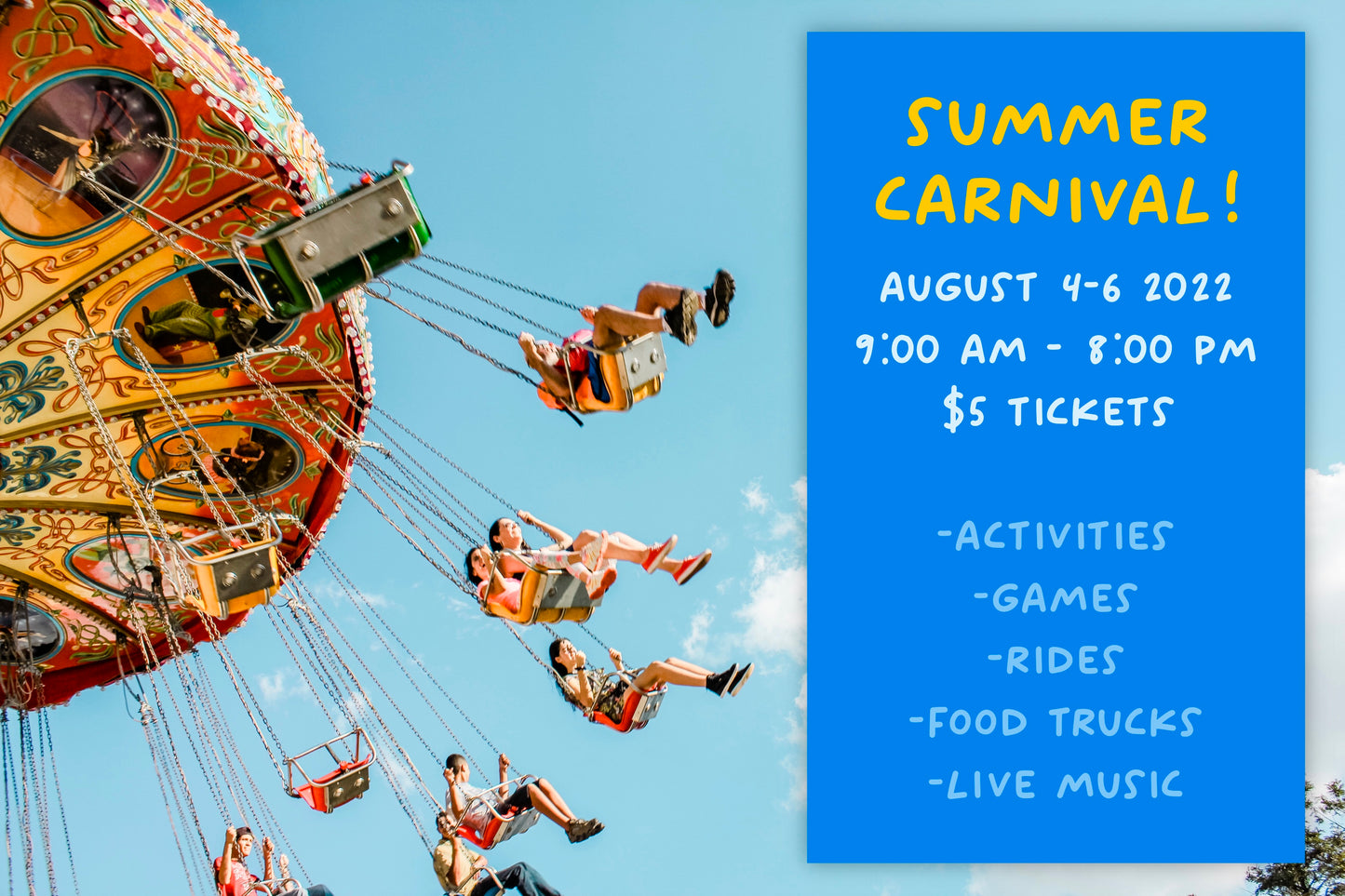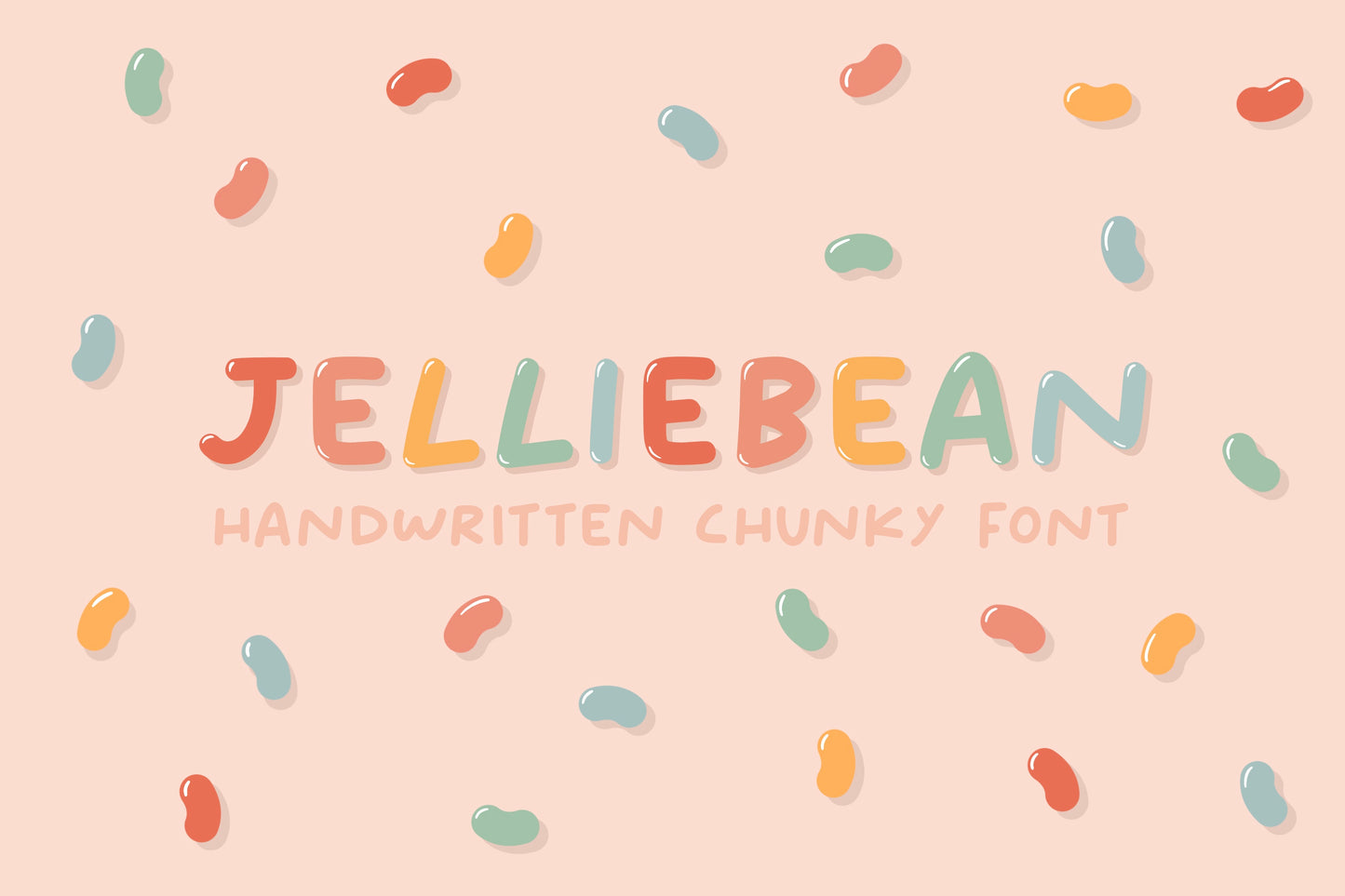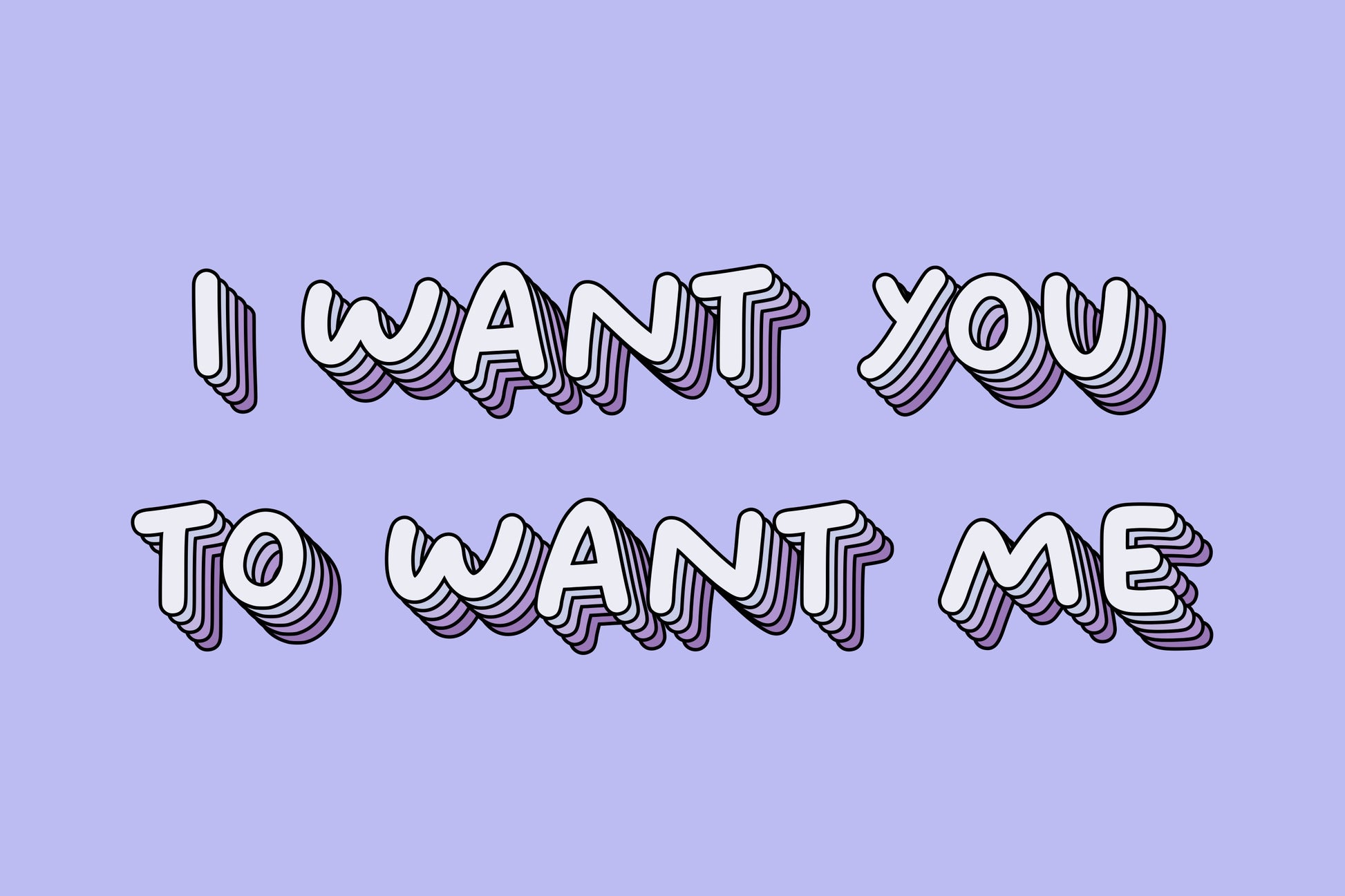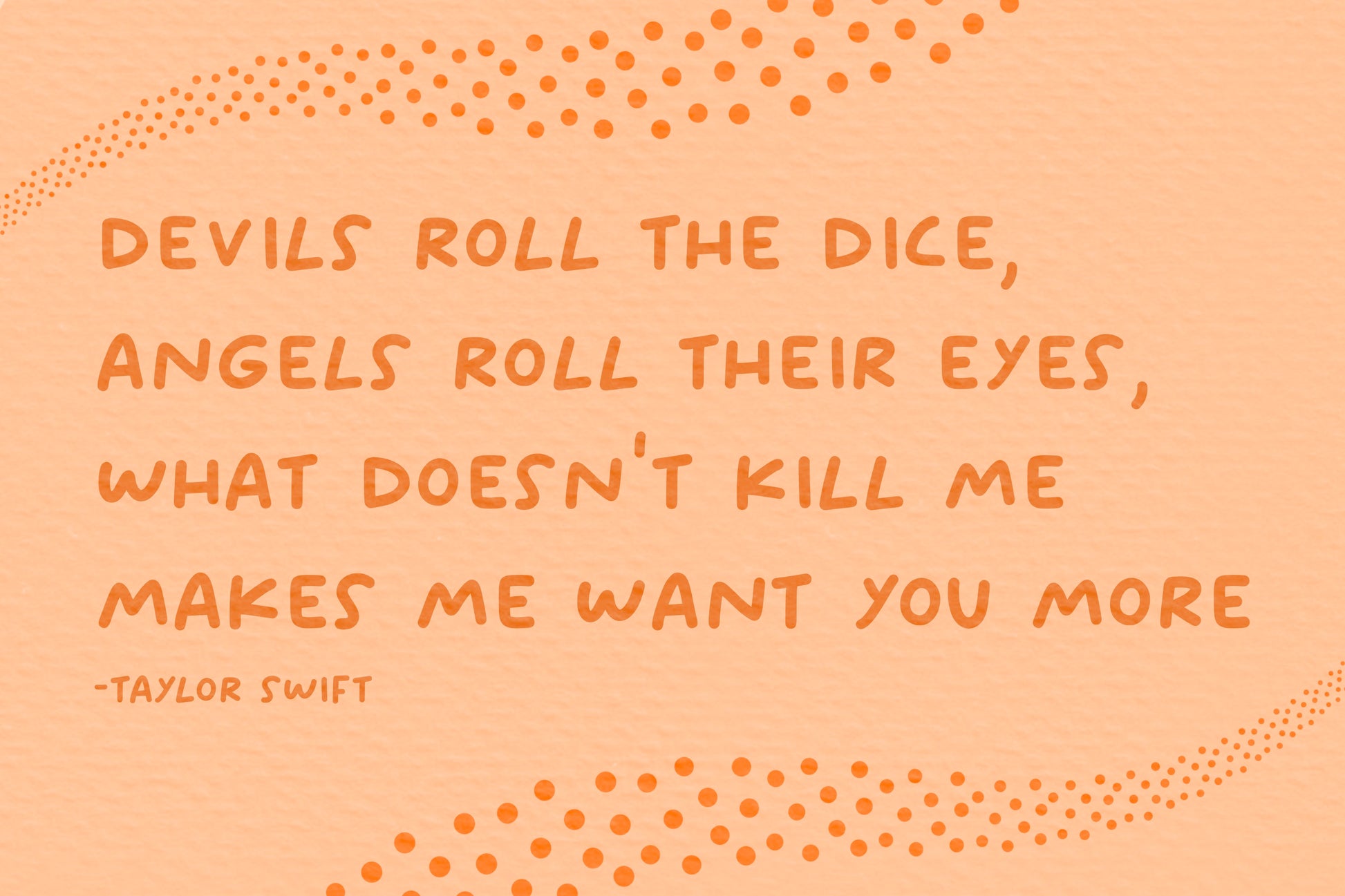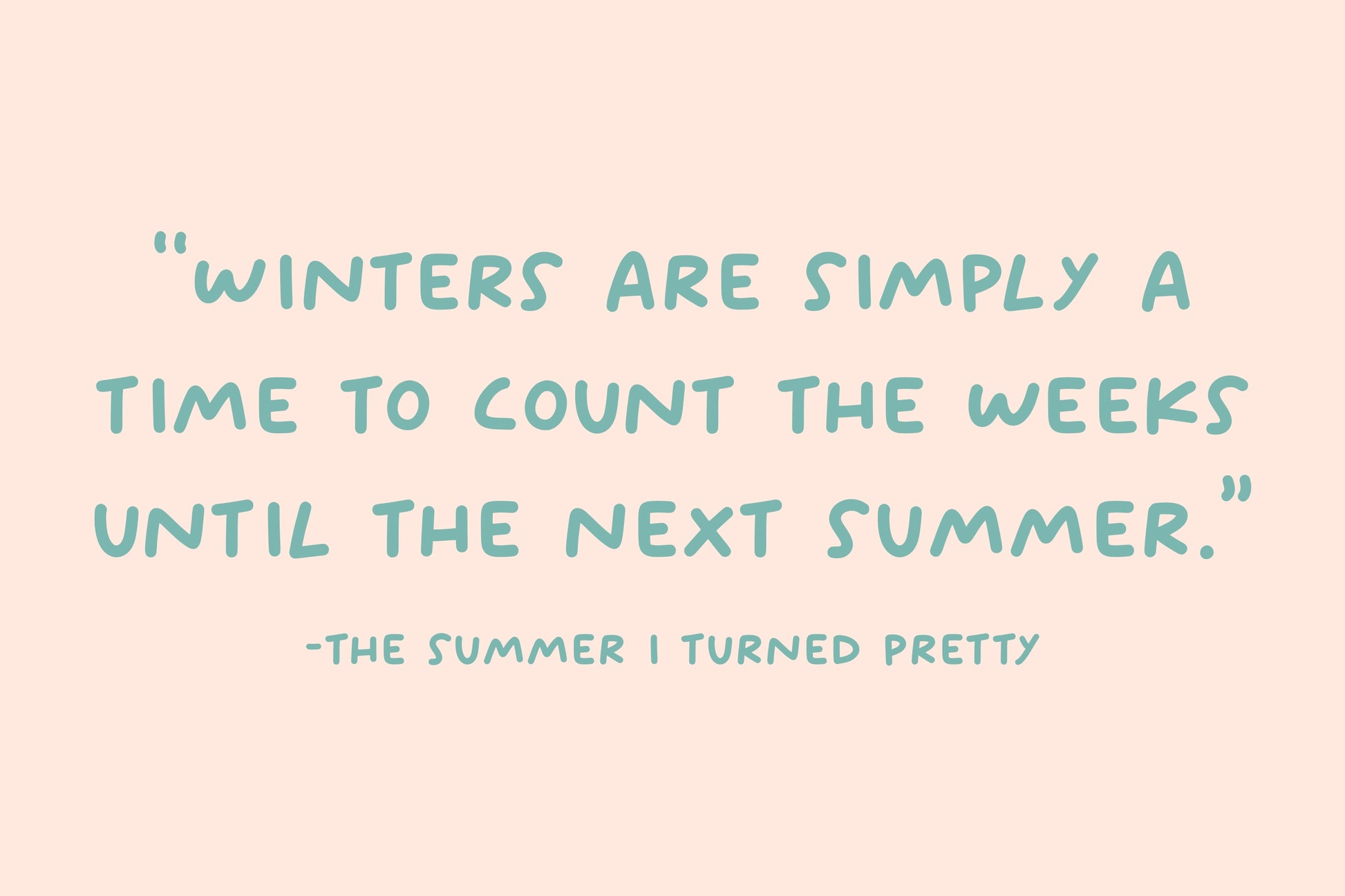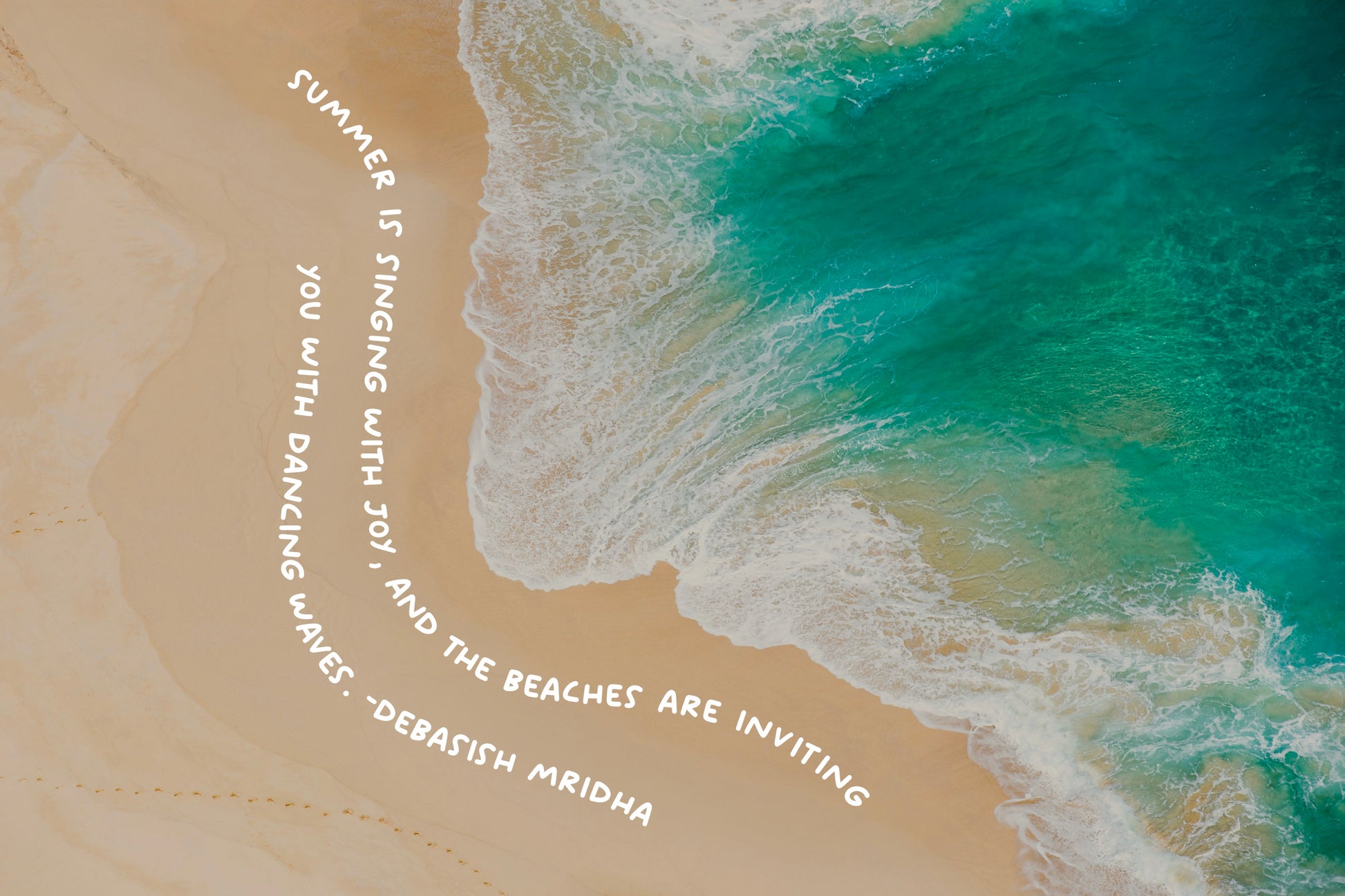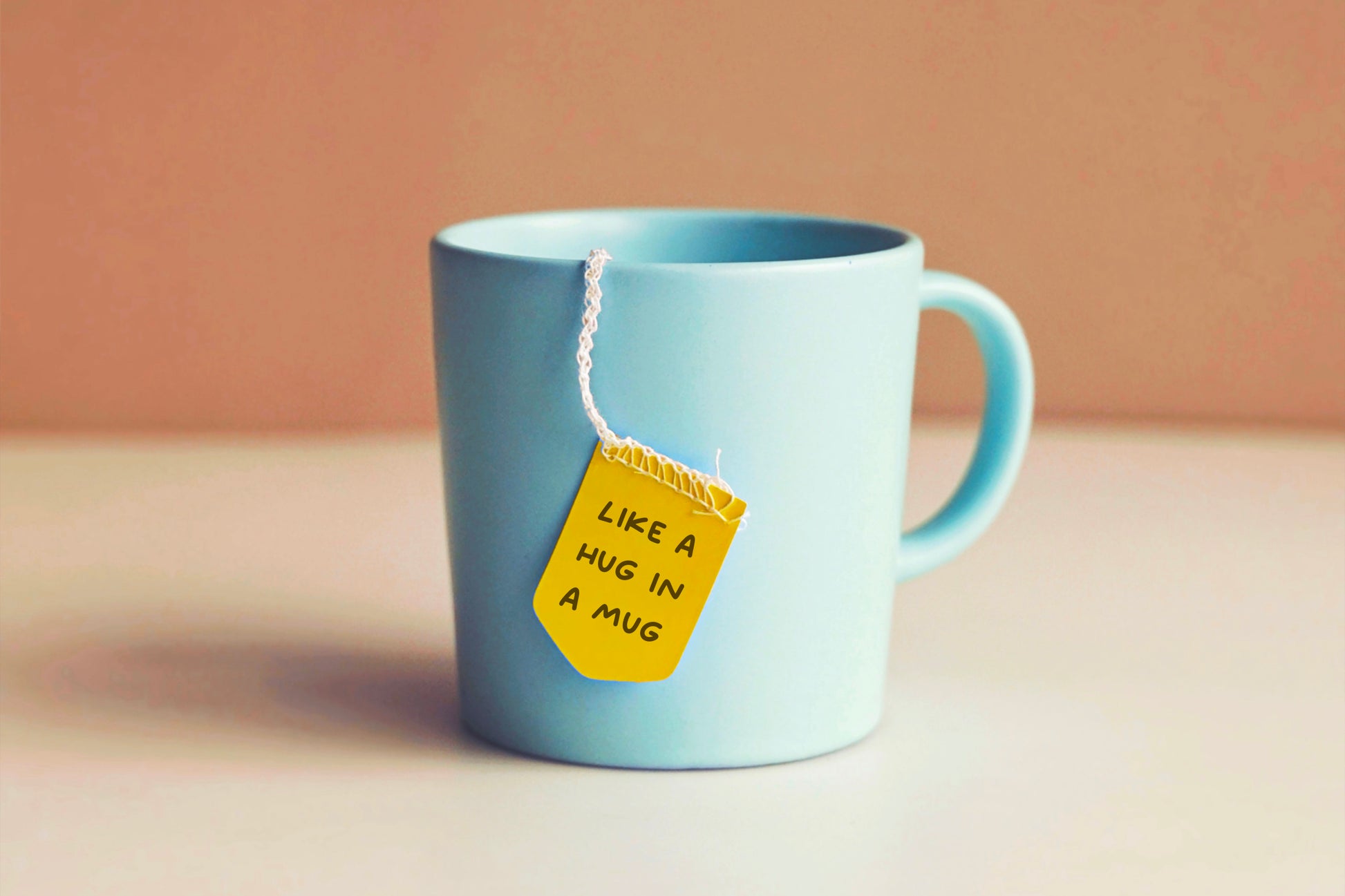
Jelliebean Handwritten Font
Introducing the Jelliebean handwritten/hand drawn font in all caps. This natural, organic, bold font will add a fun, happy, handmade touch to your design! This versatile font is great for playful and casual designs, logos, posters, notes, etc.